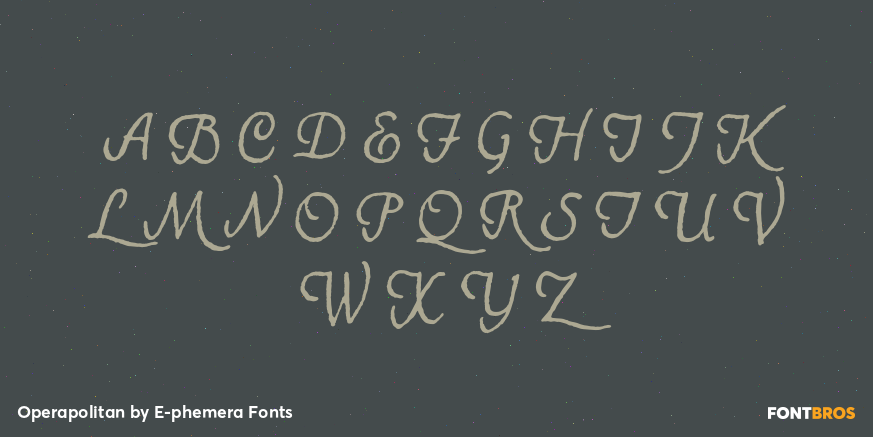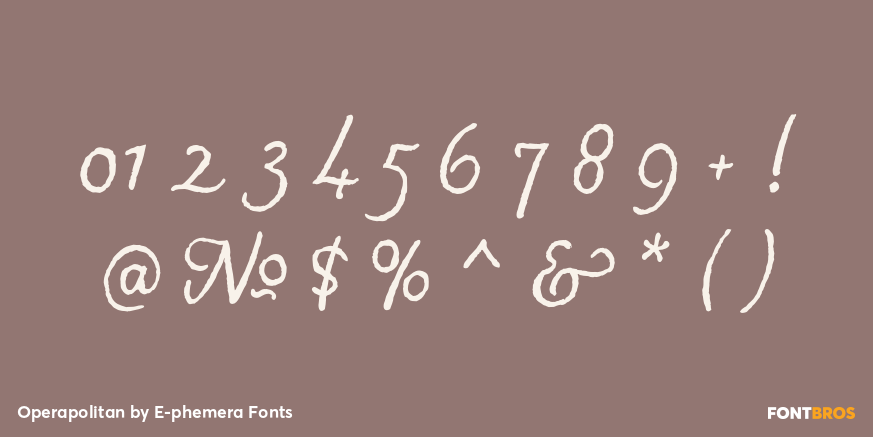
Operapolitan
Font Family by E-phemera Fonts
Operapolitan is based on some hand lettering in the program of a New York opera company from 1926. A rough script that is slightly formal but very warm and friendly. It has a complete alternative glyph set meant for use with OpenType contextual alternates to help create the feel of hand lettering, along with a complete international character set and built-in small capitals.